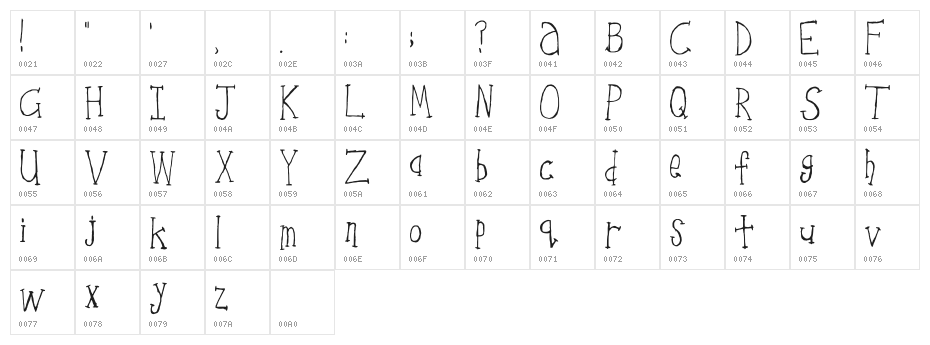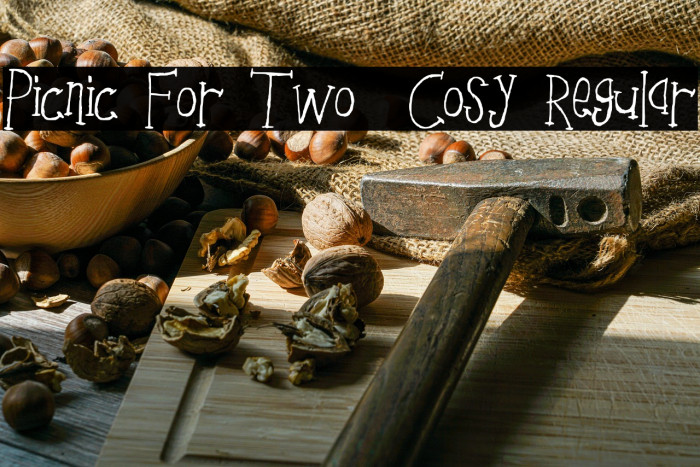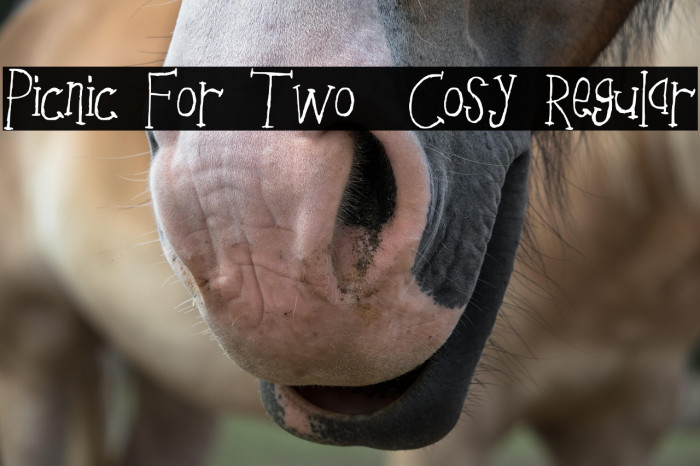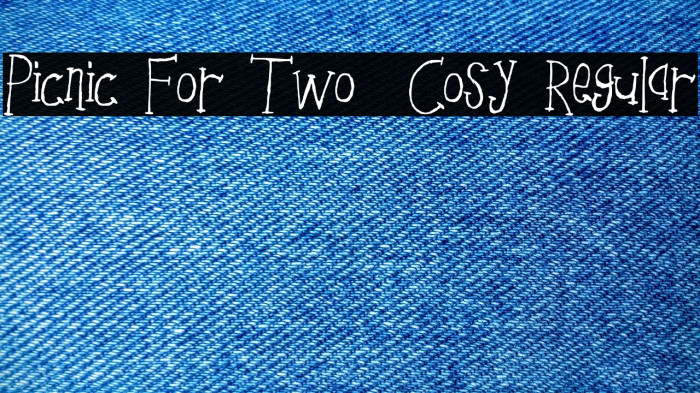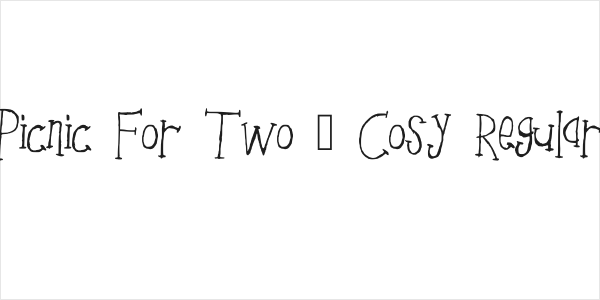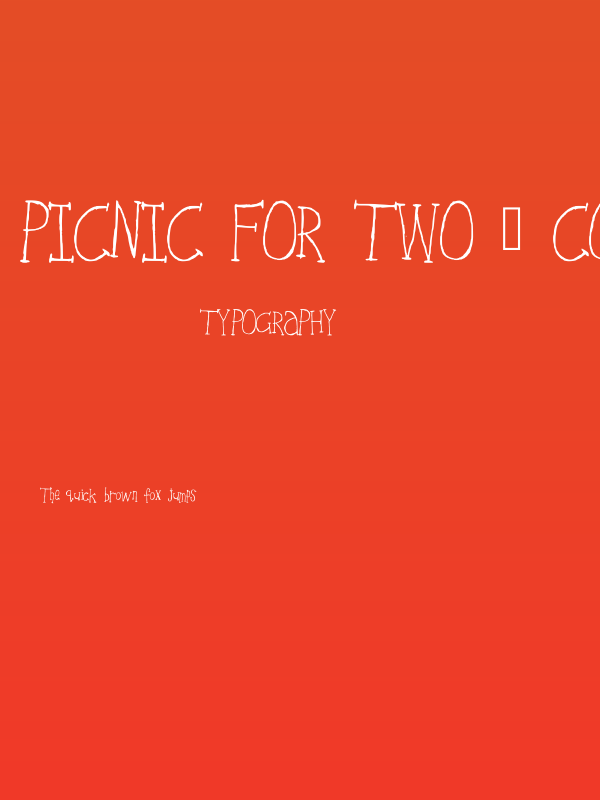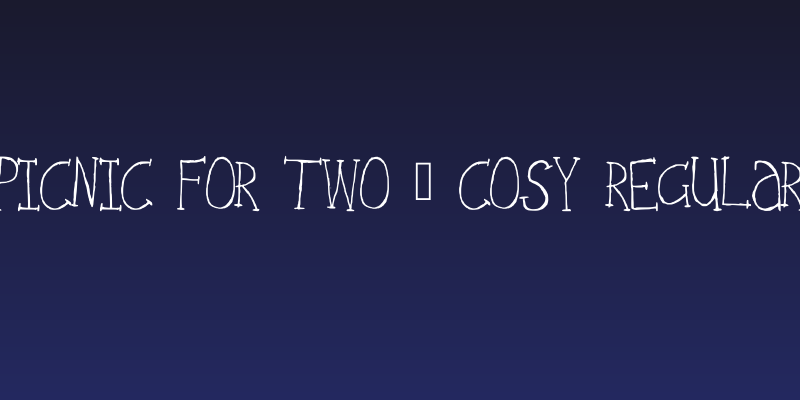
Picnic For Two _ Cosy Regular Font
Picnic For Two _ Cosy Regular Description
This font features a whimsical and playful design, characterized by its irregular and hand-drawn appearance. The letters have a unique, slightly distorted form that gives them a quirky and artistic feel. The strokes are uneven, with varying thicknesses that add to the font's charm. The overall look is reminiscent of a casual, handwritten style, making it ideal for projects that aim to convey a sense of fun and creativity. The font includes both uppercase and lowercase letters, as well as numbers and a selection of special characters, all maintaining the same distinctive style.
| Proposed Projects | Ideal for children's books, creative posters, greeting cards, and playful branding. |